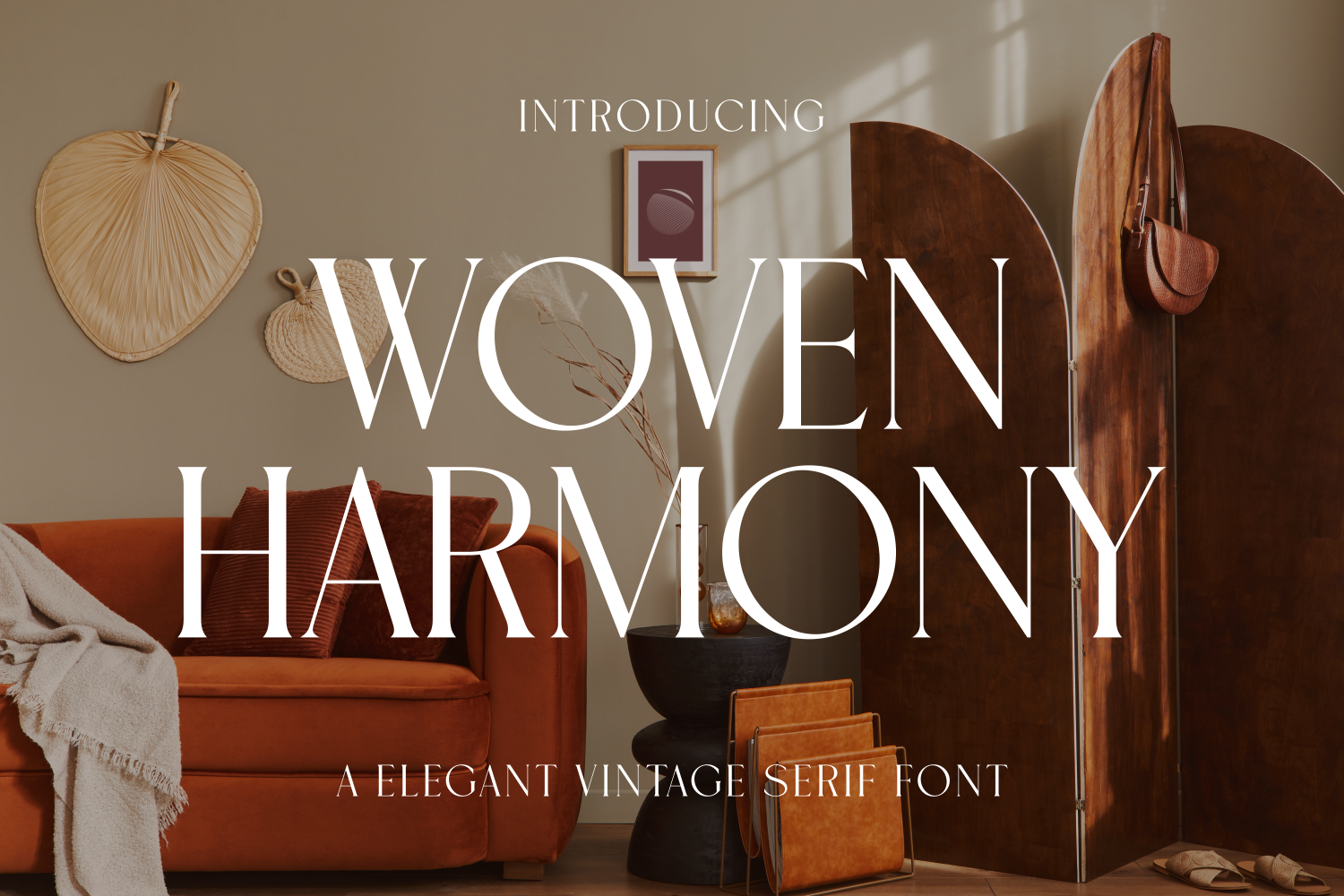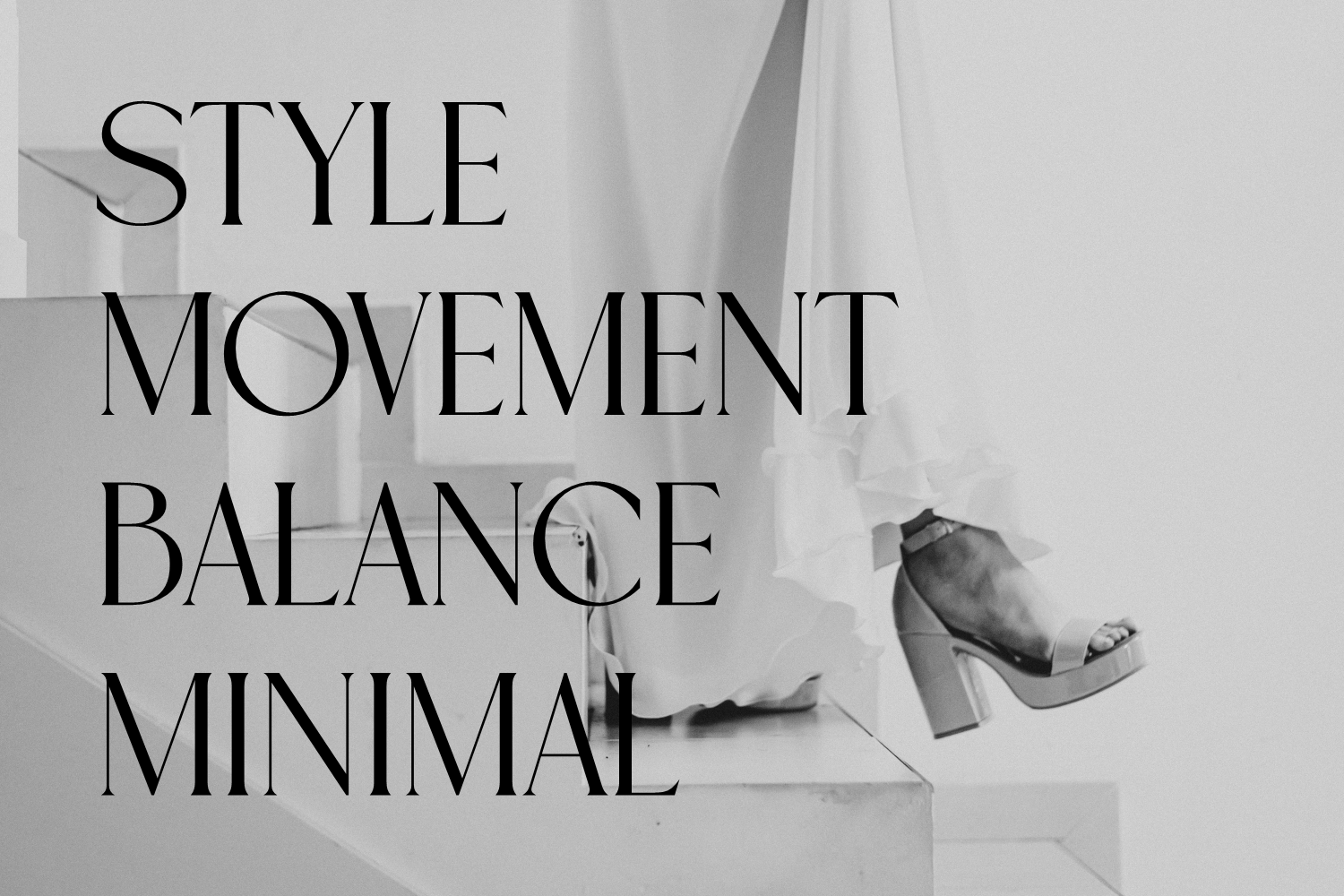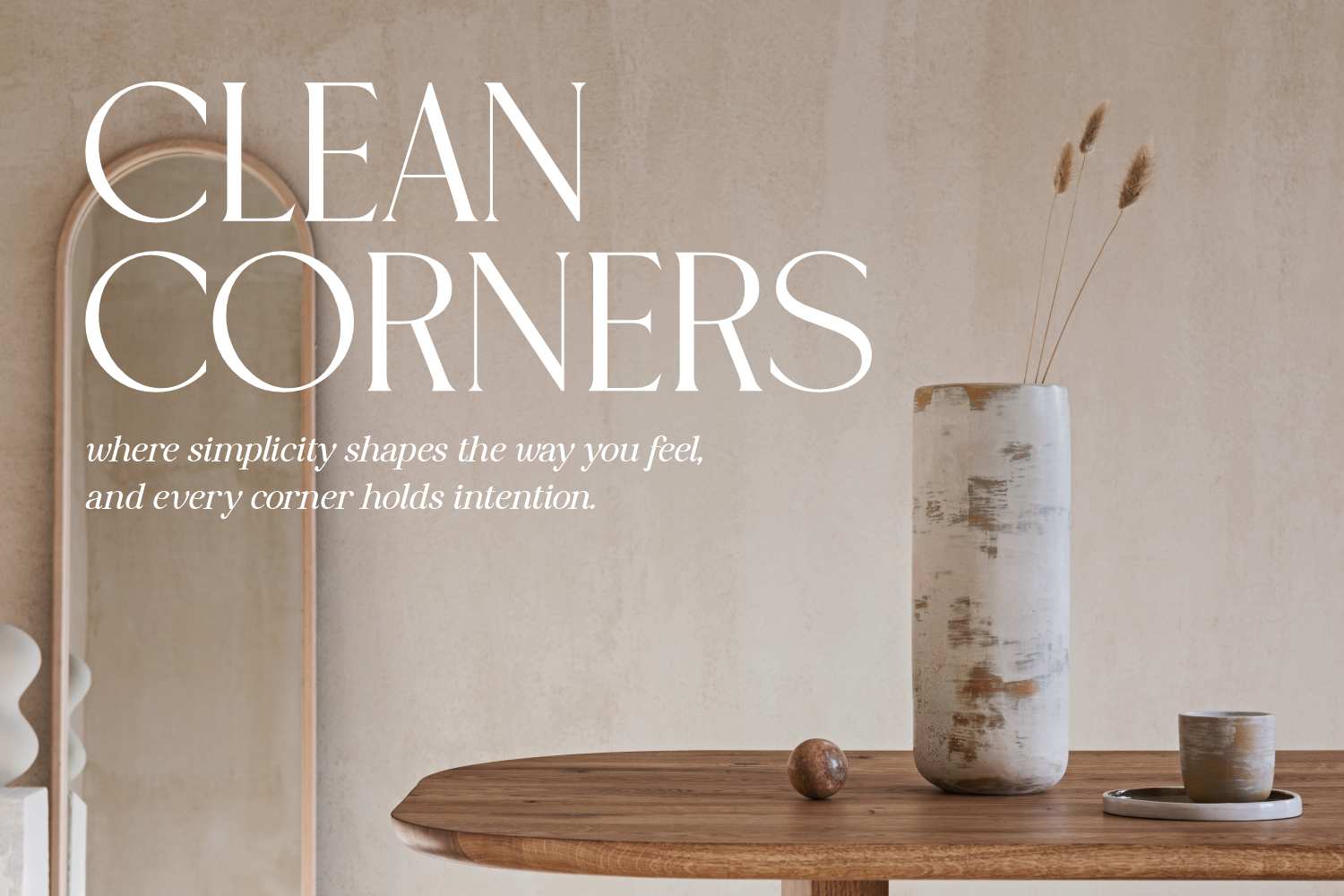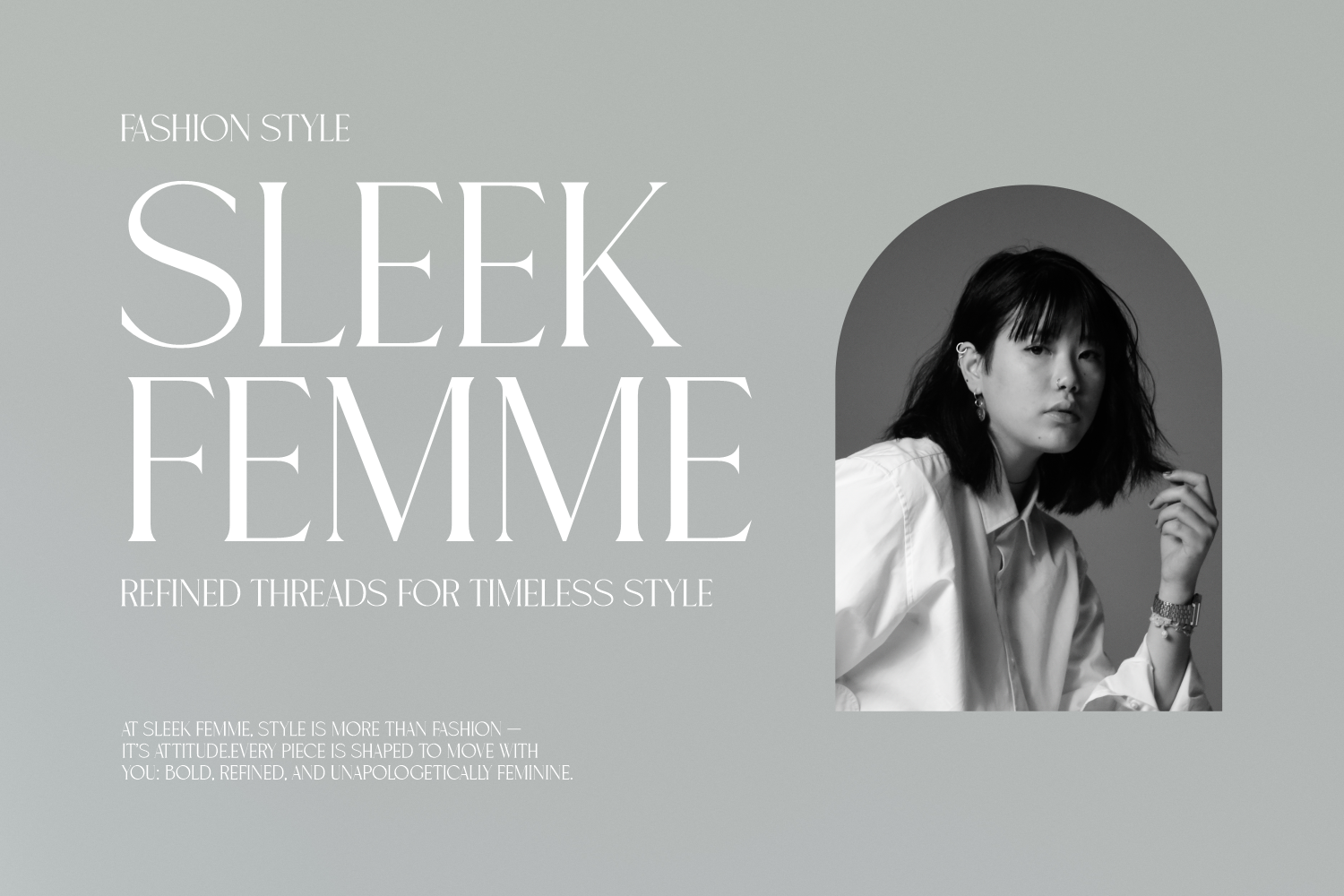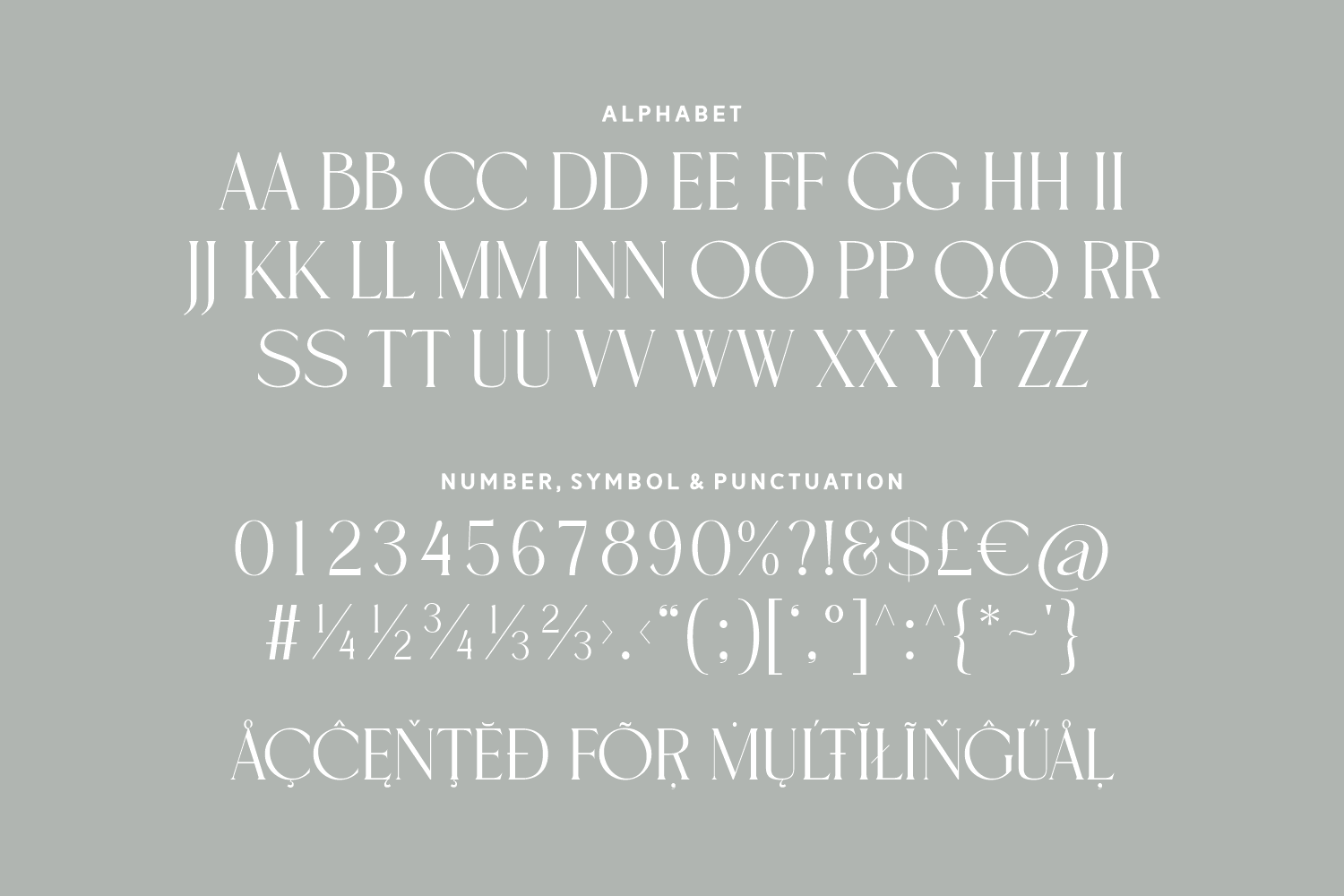
Woven Harmony
Woven Harmony is a graceful serif font that effortlessly blends vintage charm with modern finesse. A perfect choice for creatives seeking sophistication with warmth.